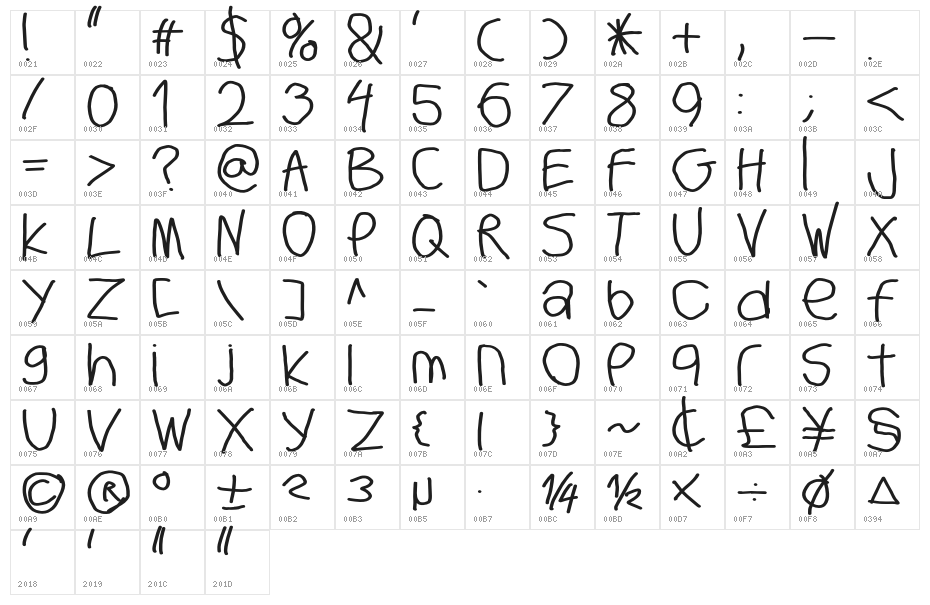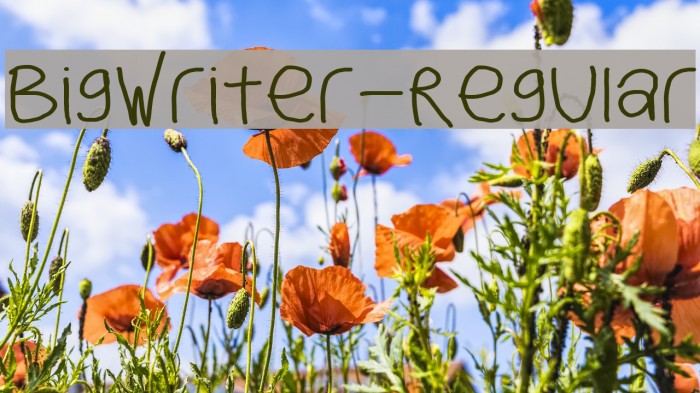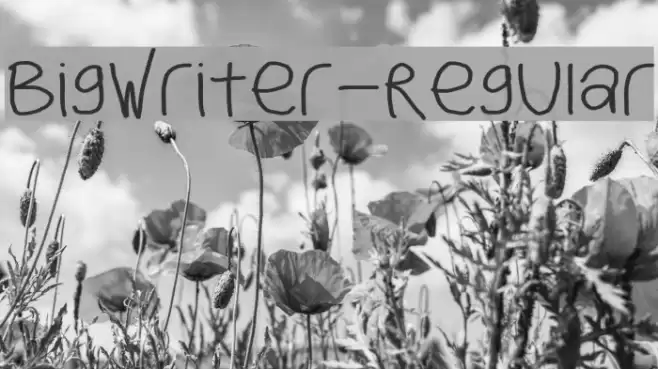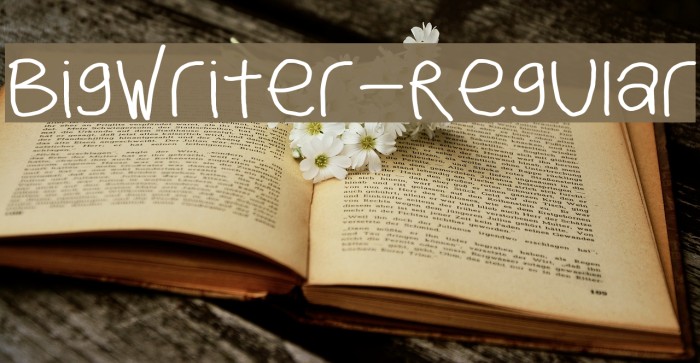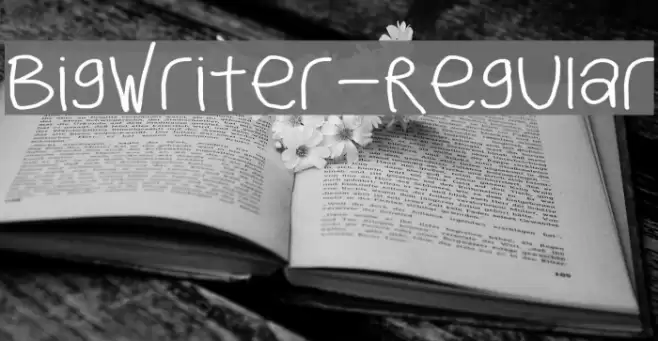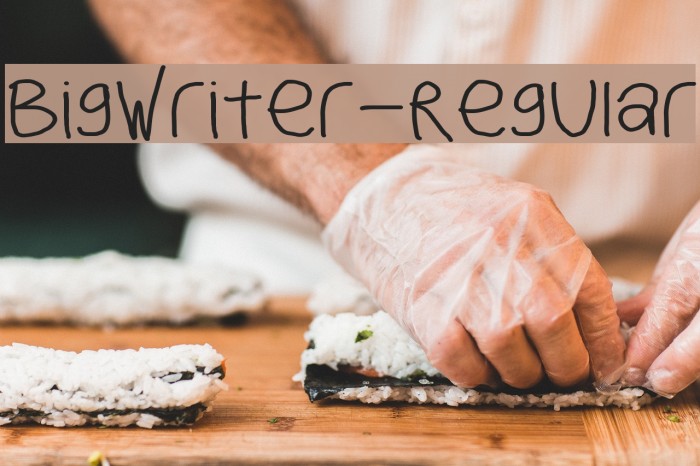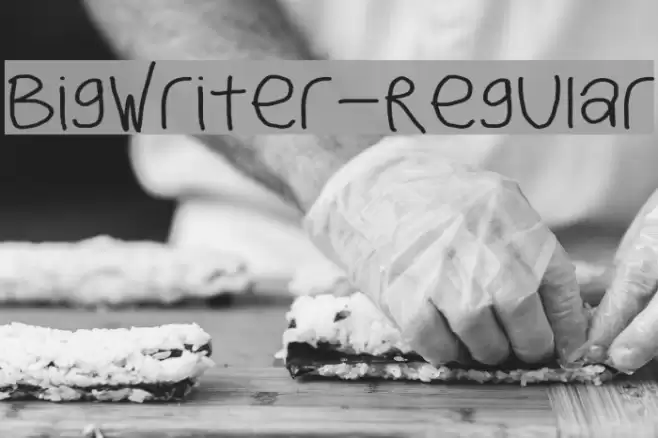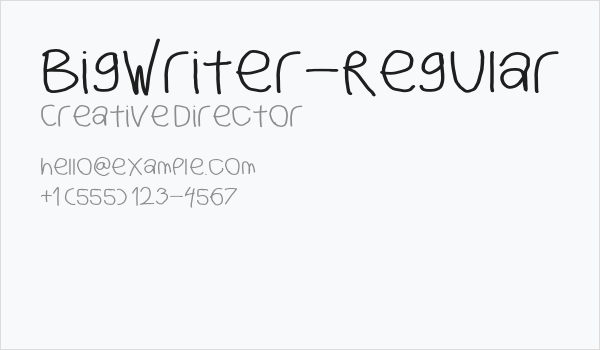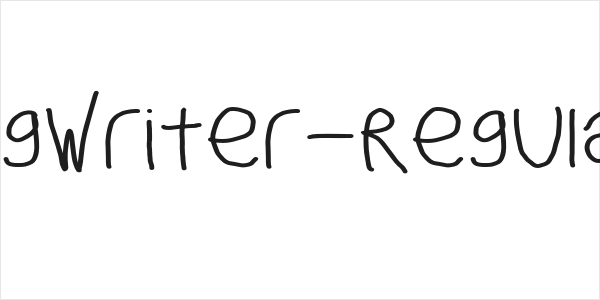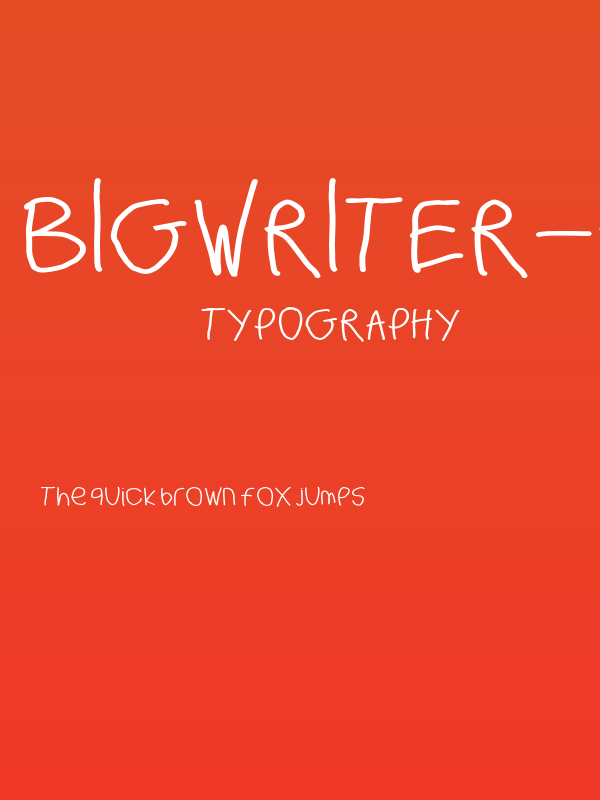
BigWriter-Regular Font
BigWriter-Regular Description
This font exhibits a playful and casual handwritten style, characterized by its irregular and organic letterforms. The strokes are uneven, giving it a natural and spontaneous appearance, reminiscent of handwriting with a felt-tip pen. The characters are slightly rounded with a consistent stroke width, contributing to its approachable and friendly vibe. The font maintains good legibility, making it suitable for informal and creative projects. Its unique style adds a personal touch, ideal for designs that require a human element.
| Proposed Projects | Ideal for greeting cards, personal notes, children's books, and creative branding projects. |